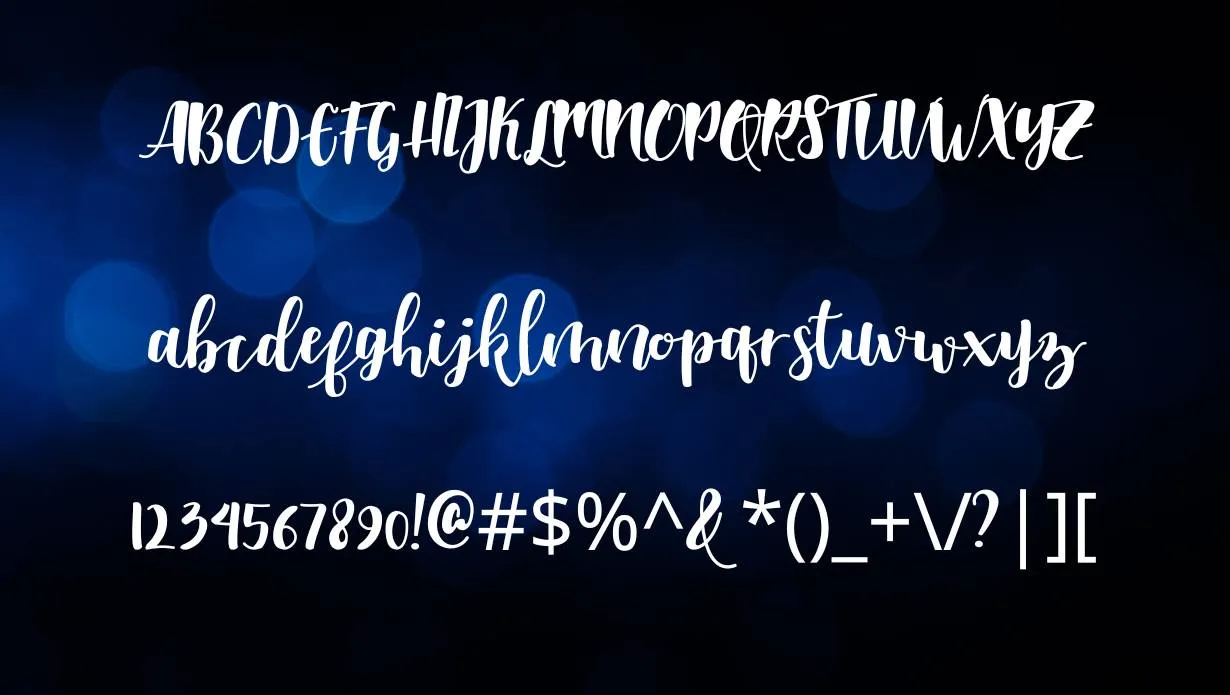
Shella Clean Font is a versatile and modern typeface suitable for various design applications.
Its clean lines and contemporary design make it a practical choice for branding, advertising, web design, and packaging, providing a fresh and organized aesthetic to your projects.
Shella Clean Font Family
Its sleek and dynamic letterforms add a sense of innovation and relevance to your designs.